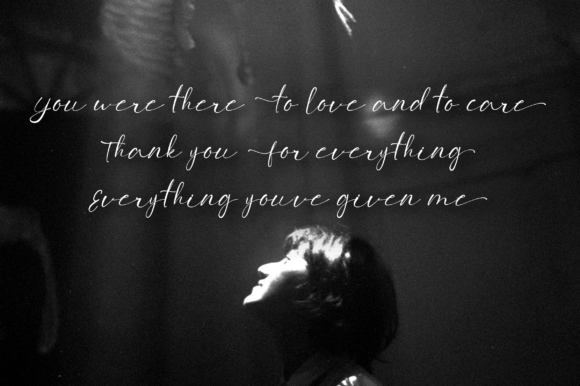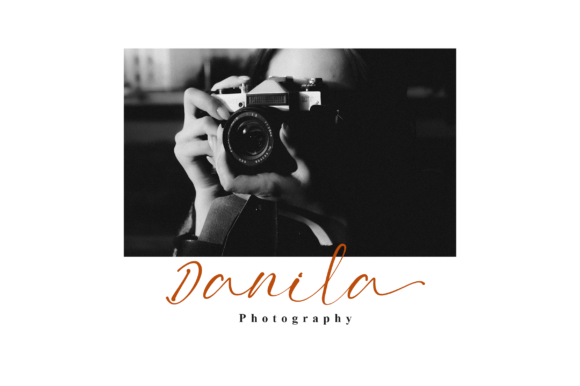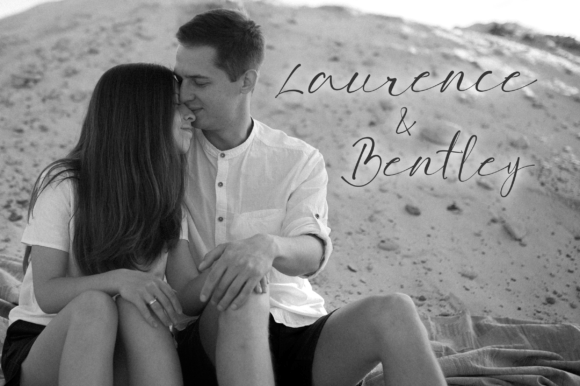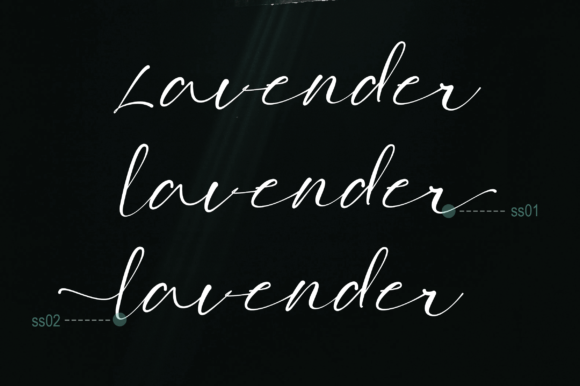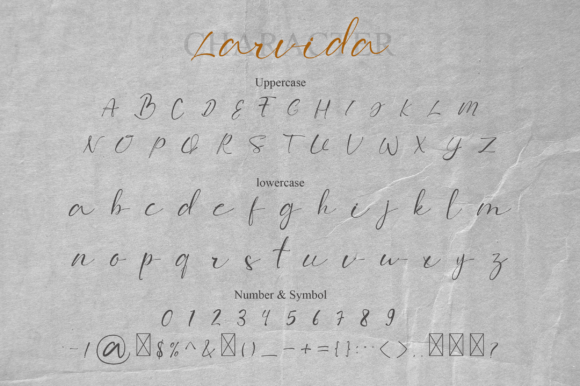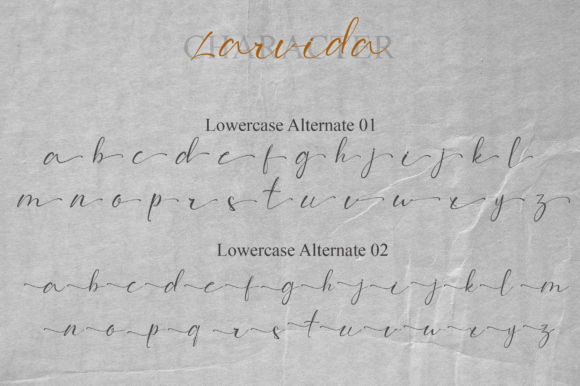
Introduction to Larvida Font
Larvida is a signature font with letters that don’t have a match between the top and bottom making it look like handwriting.
It has elegant, firm, and artistic characteristics In design, signature fonts are suitable for creating a luxurious and exclusive look, such as for fashion product brands, perfumes, or luxury hotels.
Key Features of Larvida Font